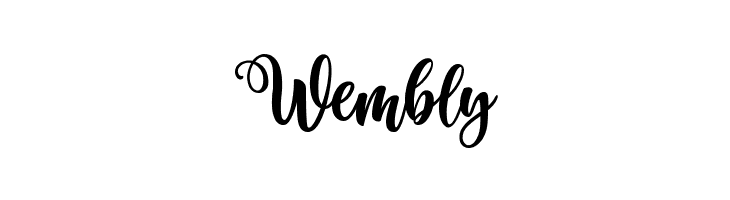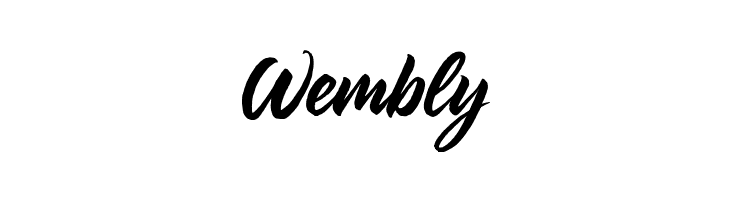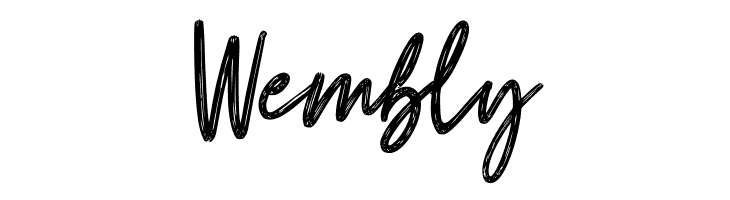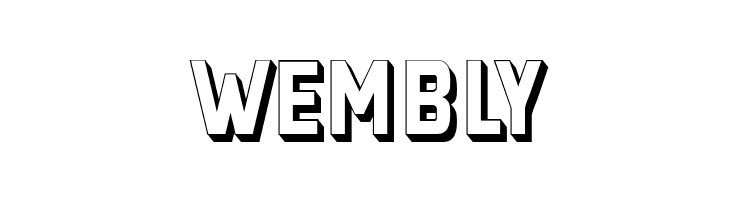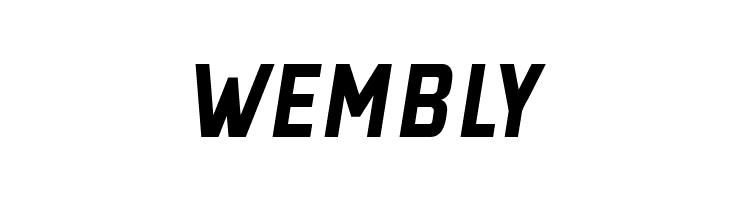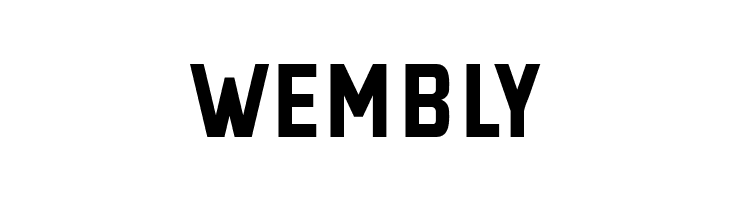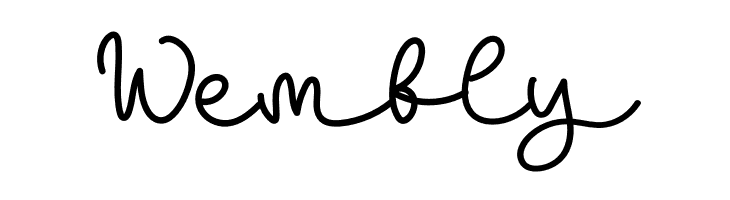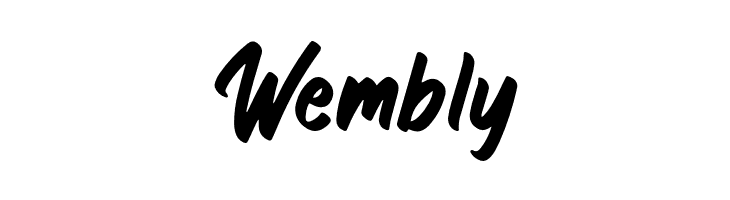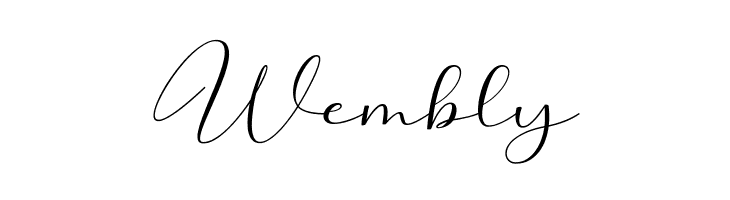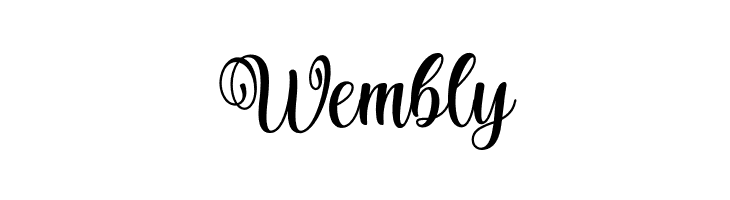
HANGUS Font
A bold, distressed font with a charred, grunge-like appearance.
Hangyaboly Font
Hangyaku Font
A modern sans-serif font with clean lines and geometric shapes.
Hani Font
A clean, modern sans-serif font with uniform stroke width and balanced character spacing.
Hanibee Font
A lively, expressive handwritten font with fluid strokes.
Haniberryku Font
An elegant script font with decorative swirls and loops.
Haniberryku Font
An elegant script font with ornate swirls and loops, perfect for decorative use.
Hanie Font
An elegant, flowing script font with a natural handwriting style.
Hanif Font
A modern, clean sans-serif font with geometric and uniform characters.
Hanif Bold Font
A bold, modern font with thick strokes and high legibility.
hanifah Regular Font
An elegant script font with intricate loops and flourishes.
Hanimoon Font
Hanindya Font
An elegant script font with intricate swirls and high contrast strokes.
Hanindya Font
A bold, brush-style font with a hand-drawn, energetic appearance.
HanishaLovely Font
An elegant script font with flowing, intricate loops and swashes.
Hanitha Font
An elegant script font with intricate swirls and decorative flourishes.
hankenround-Regular Font
A modern, rounded font with a clean and approachable design.
hanko Font
Bold, rounded characters within black squares for a playful, modern look.
Hanky Pankee Font
A bold, playful font with rectangular, outlined characters.
Hanleth Free Personal Use Font
A stylish and elegant script font with flowing, connected letterforms.
Hanmade Font
A lively handwritten script with a personal, informal touch.